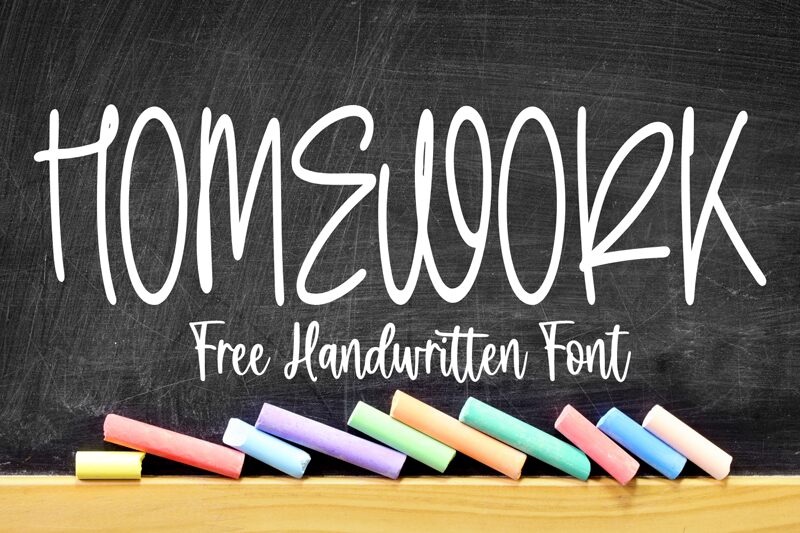
Homework
Homework, a delightful creation by renowned designer Al Ghul, captures the essence of handwritten charm with its semi-light weight. This whimsical font style evokes a nostalgic school theme, perfect for projects that require a playful touch. Whether crafting educational materials, designing interactive children's books, or developing engaging websites for academic institutions, Homework's warm and approachable feel will effortlessly engage audiences of all ages. Its legible yet unique design ensures readability while adding an element of creativity to any project. Let Homework be your go-to font choice and watch your ideas come to life!